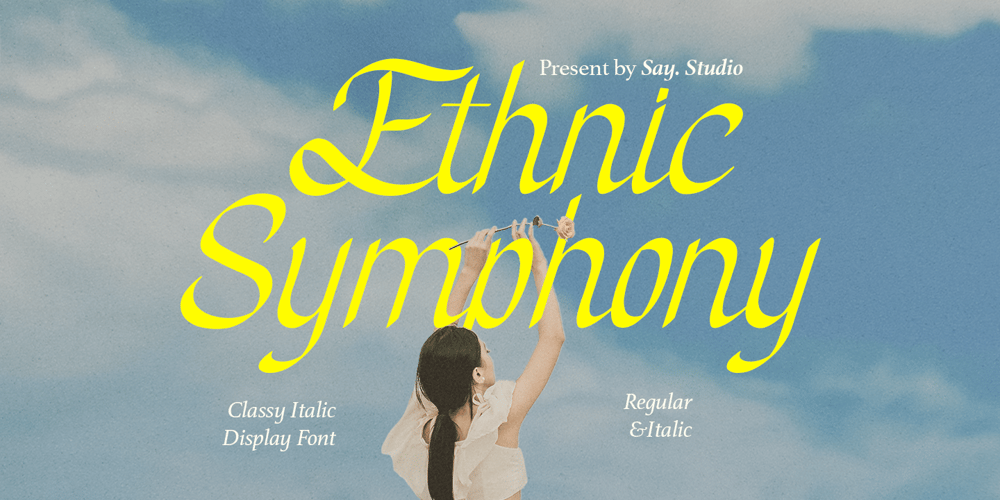
Ethic Symphony Font Family was designed by Mussyayin and published by Say Studio. Ethic Symphony contains 2 styles and family package options. Say hello to ” Ethnic Symphony “, a classy italic that lives for being the center of attention. A unique mix of retro style calligraphy creates a memorable typeface with a romantic flair. Ethnic Symphony also features a regular version in a sans serif font which pairs very well with the Italic versions. Good choice for phenomenal go-to for any luxe branding or type-focused project. Includes:- Ethnic Symphony Italic – Ethnic Symphony Regular Sans Serif – Numbers & punctuation- Foreign language supportIf you wany any question from this font, call me!Thanks, Have a wonderful DaySay Studio